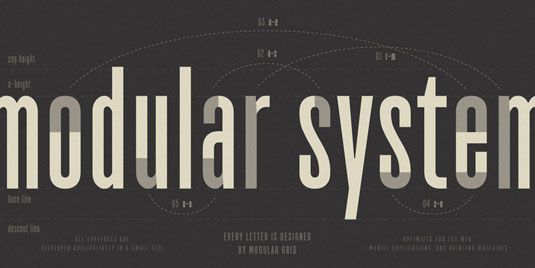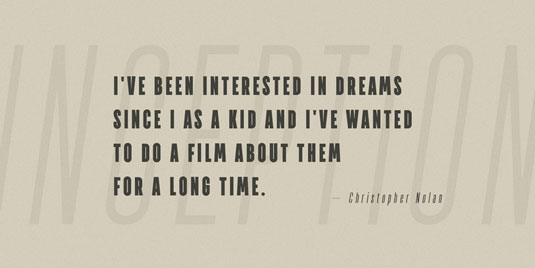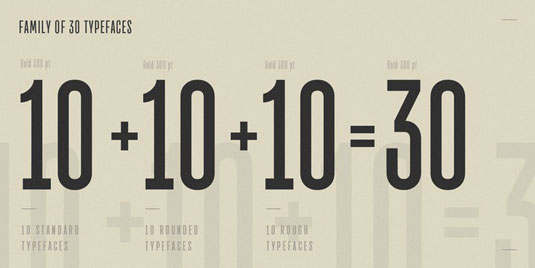
Font of the day: TT Bluescreens
TT Bluescreens by Ivan Gladkikh
TT Bluescreens is a typeface created purely for all your movie-themed designs. Ivan Gladkikh is the man behind the font, which is available from MyFonts. A high-quality font family, designed specifically for cinephiles and directors, TT Bluescreens is perfect for posters, titles, movie trailers and more.